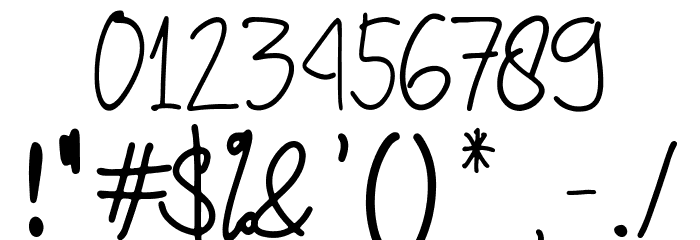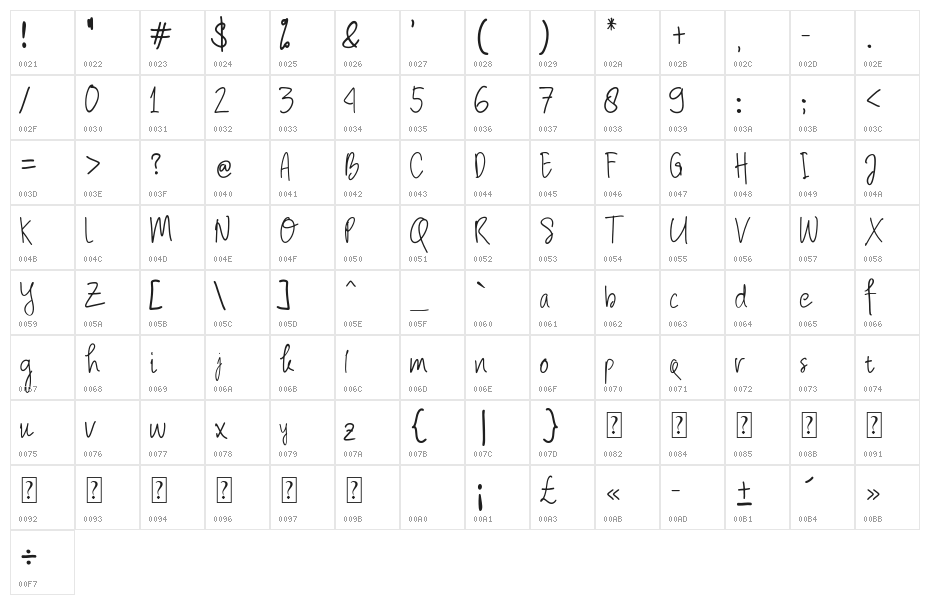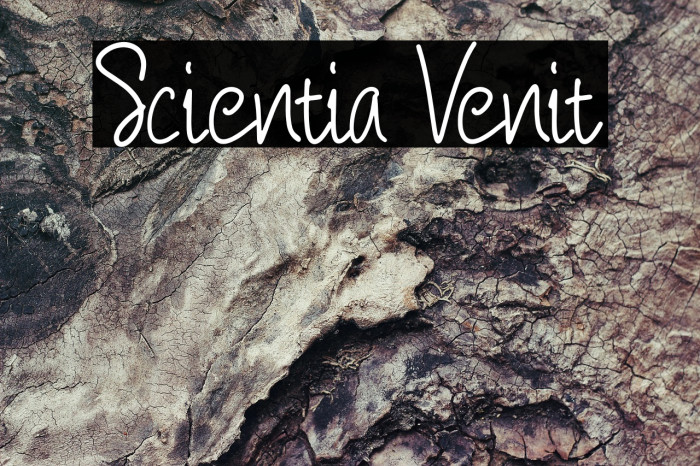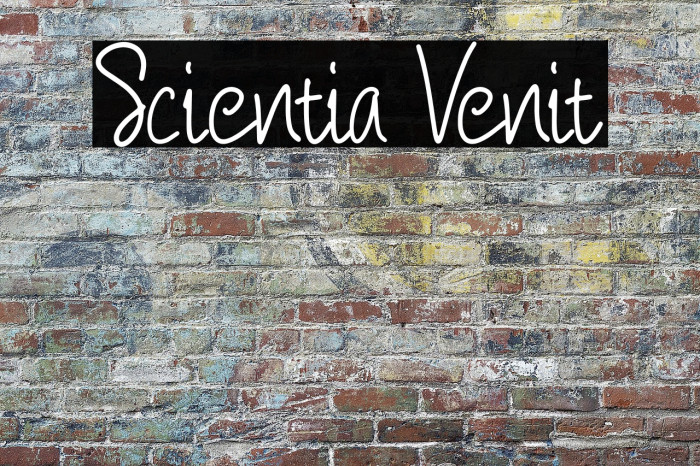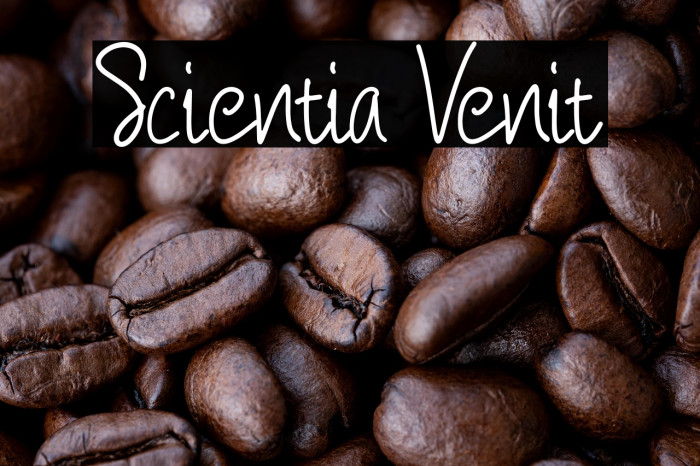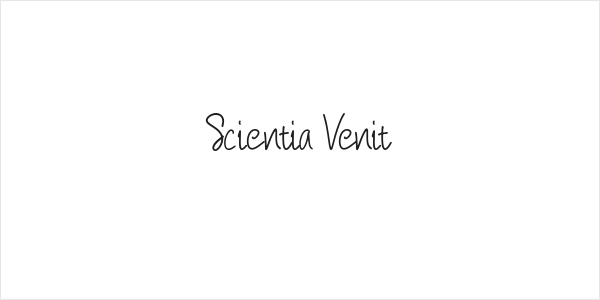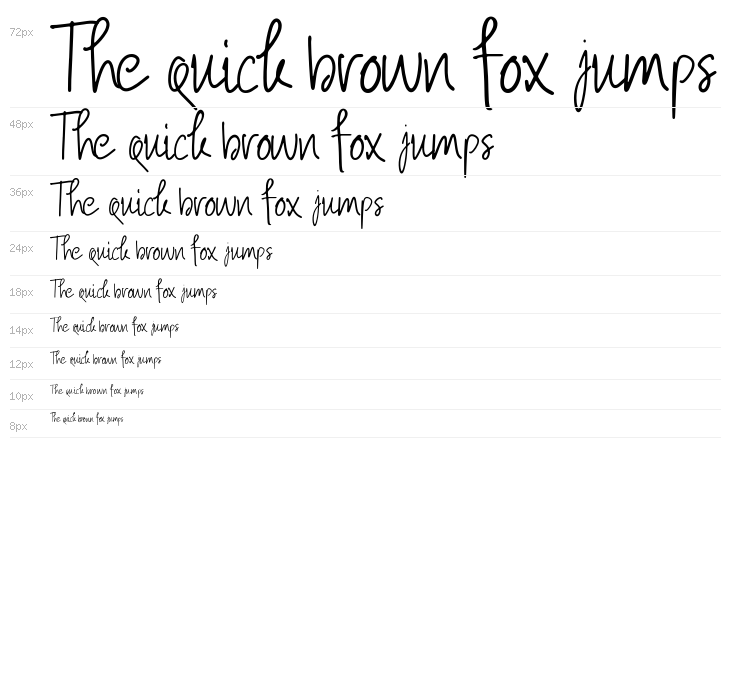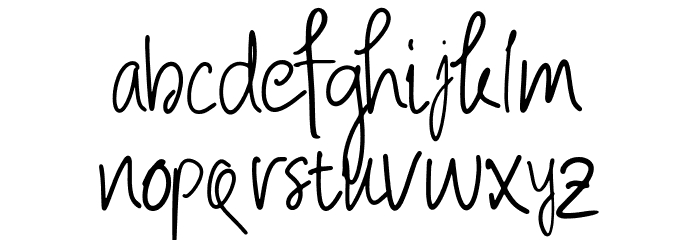
Scientia Venit Font
Scientia Venit Description
This font exudes a playful and casual handwritten style, characterized by its fluid and slightly irregular strokes. The letters are tall and slender, with a slight slant that adds to its informal charm. The uppercase letters maintain a consistent height, while the lowercase letters vary slightly, giving a dynamic and lively appearance. The numbers and special characters follow the same whimsical style, ensuring a cohesive look across all characters. This font is perfect for projects that require a personal touch, such as greeting cards, invitations, or creative branding materials.